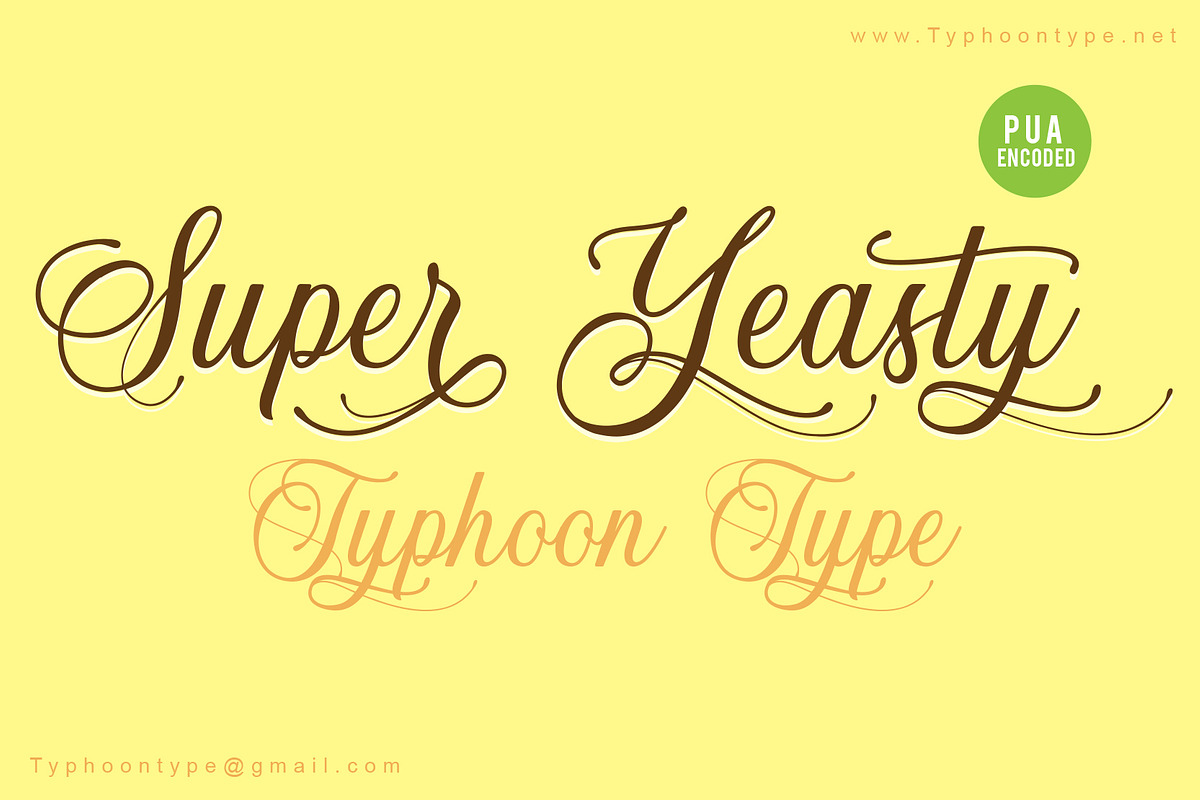
Super Yeasty font
Super Yeasty This Font perfect for logos, name tag, advertising, product packaging, clothing, social media & greeting cards.
Why Super Yeasty font is worth a look
Super Yeasty font by TyphoonStudio fits naturally into Branding, posters, packaging, typography.